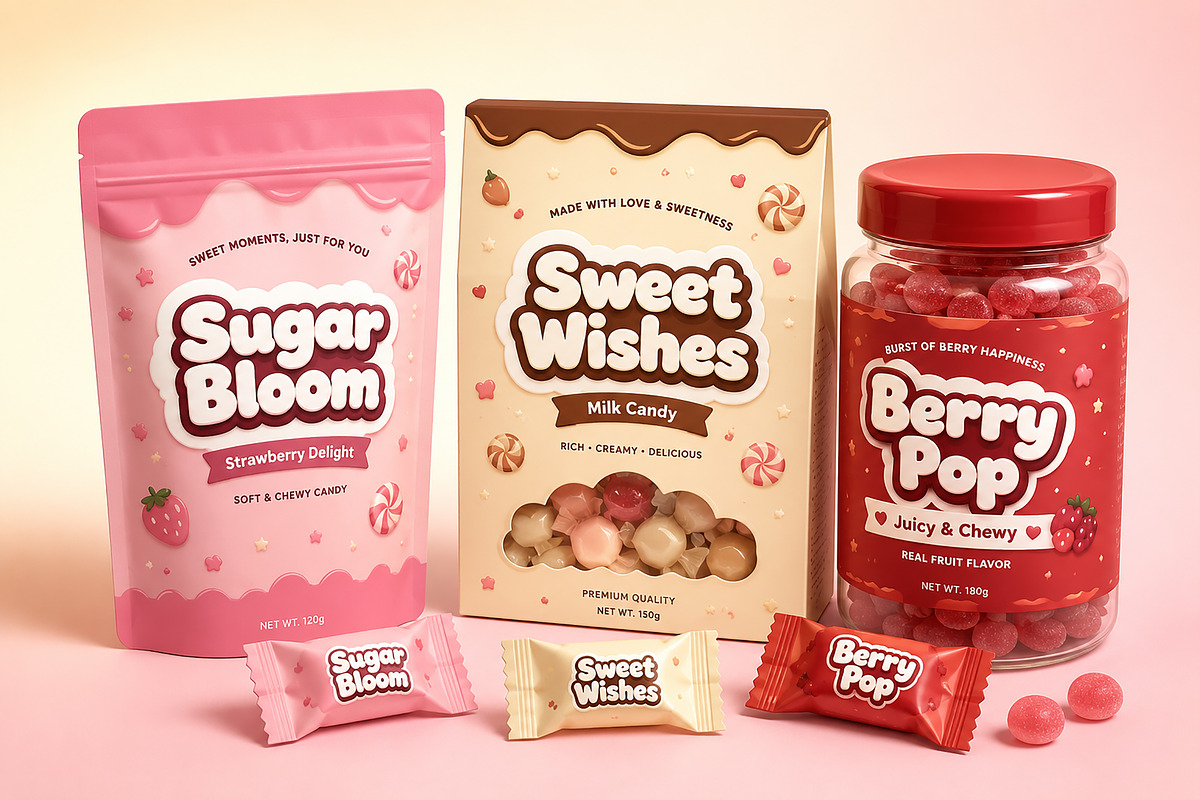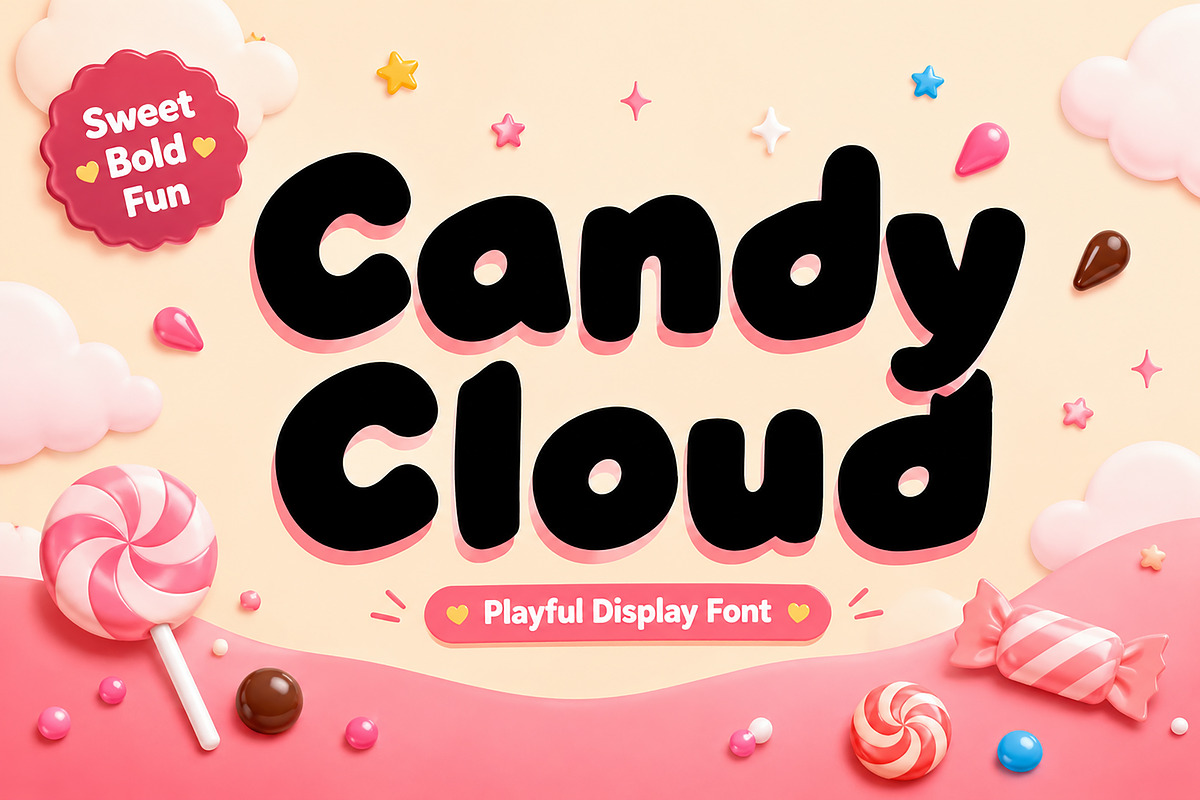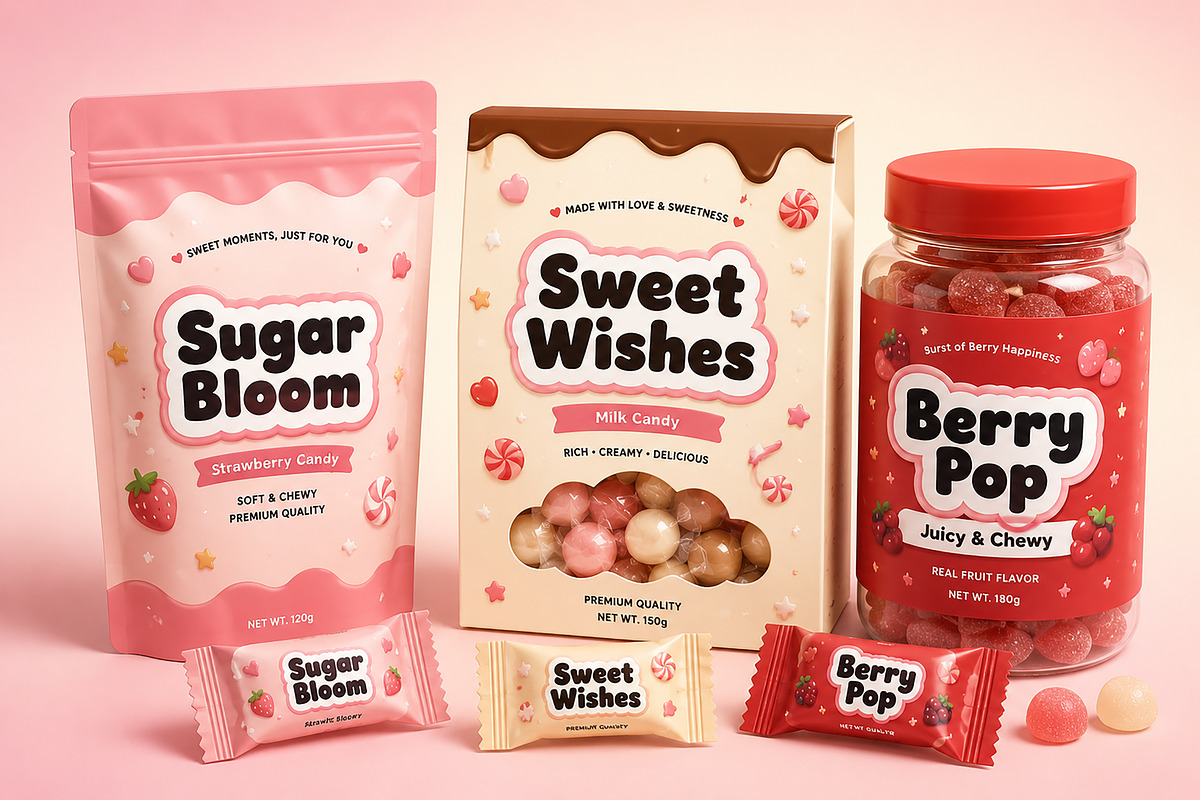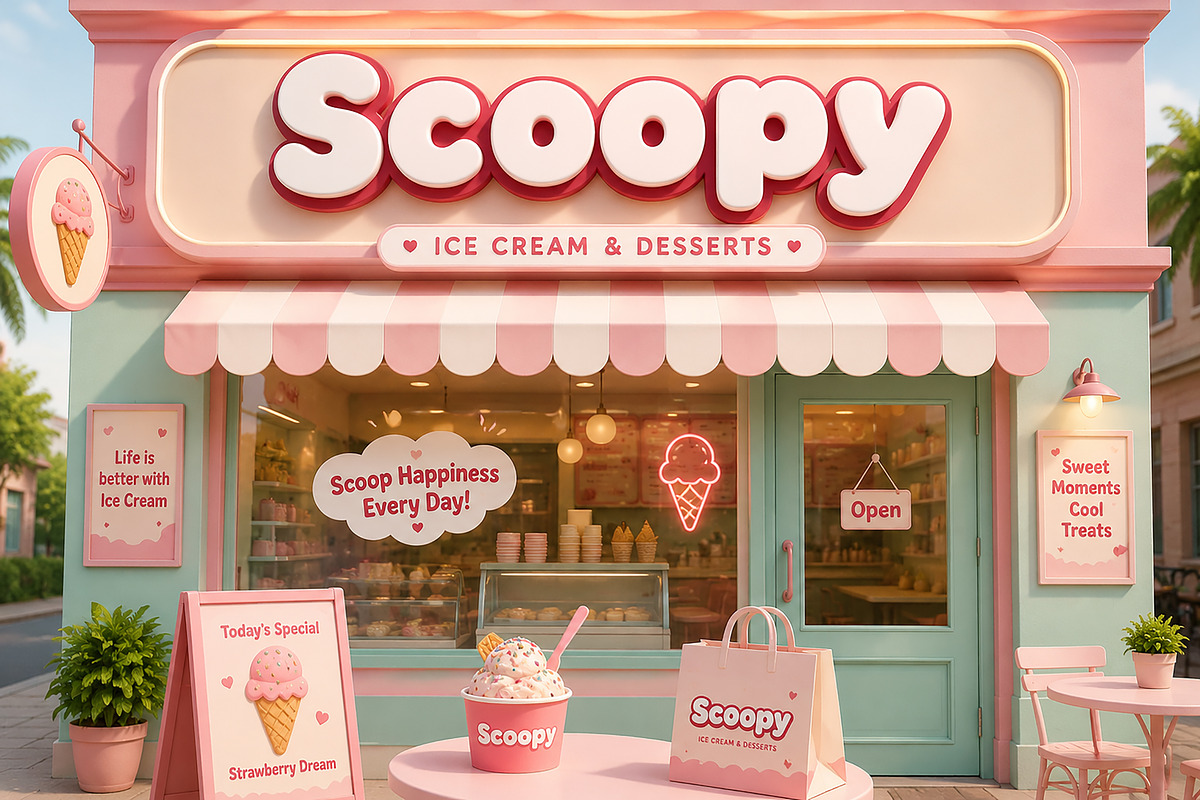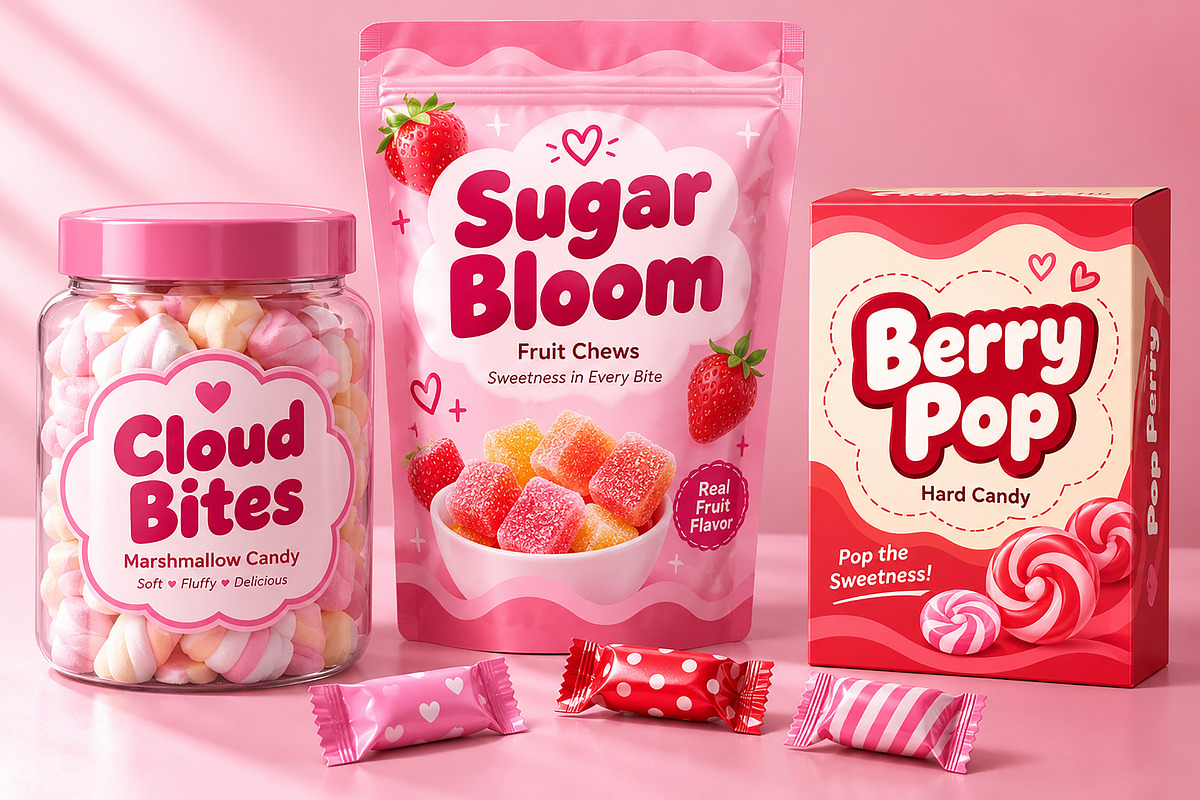
Candy Cloud
Candy Cloud is a playful, bold, and irresistibly sweet display font designed to make every design feel cheerful and eye-catching. Featuring soft rounded letterforms with a fun, bubbly personality, this font is perfect for projects that need a friendly, energetic, and modern look.
Whether you're creating branding for candy shops, dessert cafés, children's products, party invitations, packaging, social media graphics, or playful logos, Candy Cloud adds a charming and memorable touch to every design.
Its thick, smooth curves and clean construction ensure excellent readability while maintaining a cute, handcrafted appearance that stands out across both print and digital media.
Candy & Sweet Branding
Ice Cream Shops
Bakery & Dessert Logos
Kids Products
Children's Books
Product Labels
Stickers
Party Invitations
Birthday Designs
T-Shirt Designs
Posters
YouTube Thumbnails
Advertising
Branding Projects
Display Headlines